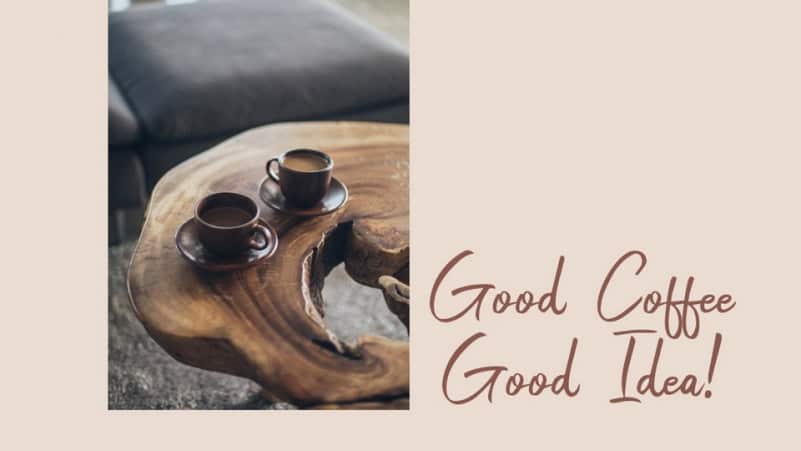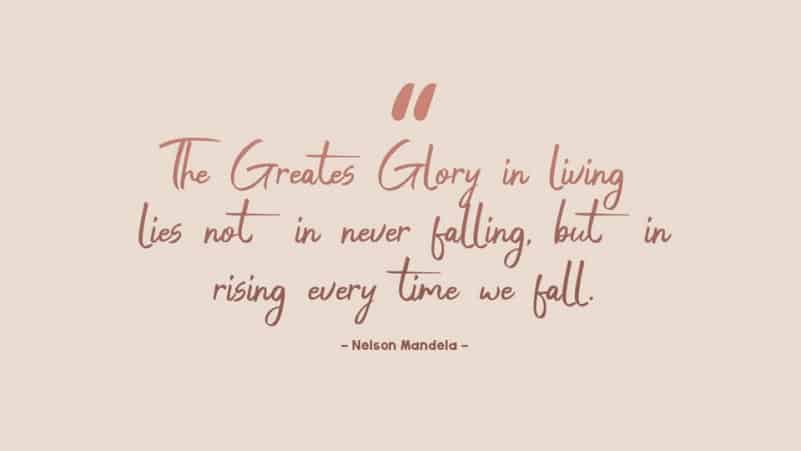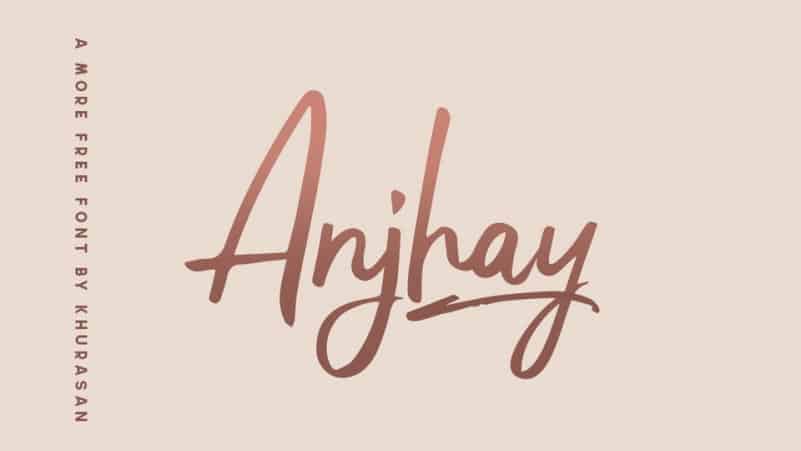
Anjhay Script Font is handmade font with stunning characters. It contains a full set of lower & uppercase letters, a large range of punctuation, numerals, and multilingual support. A free handwritten font with a realistic natural look.The font is suitable for social media, cards, crafts, quotes and other projects.